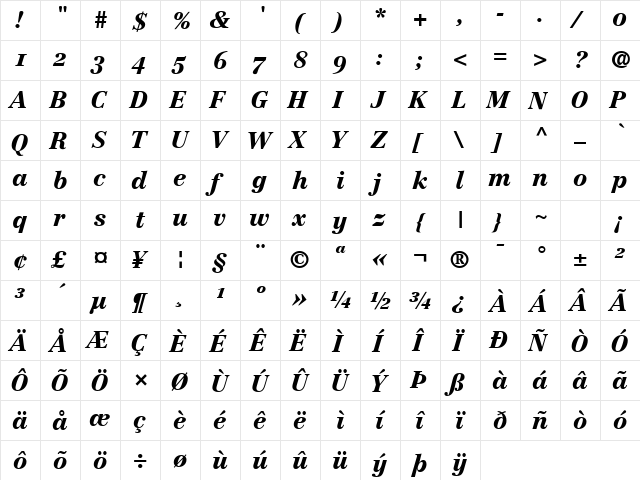
Century Reprise BlackOS SSi Normal
Design Context for Century Reprise BlackOS SSi Typeface
Century Reprise BlackOS SSi takes a measured approach to typography — its balanced proportions and neutral character make it a reliable workhorse for both digital and print work.